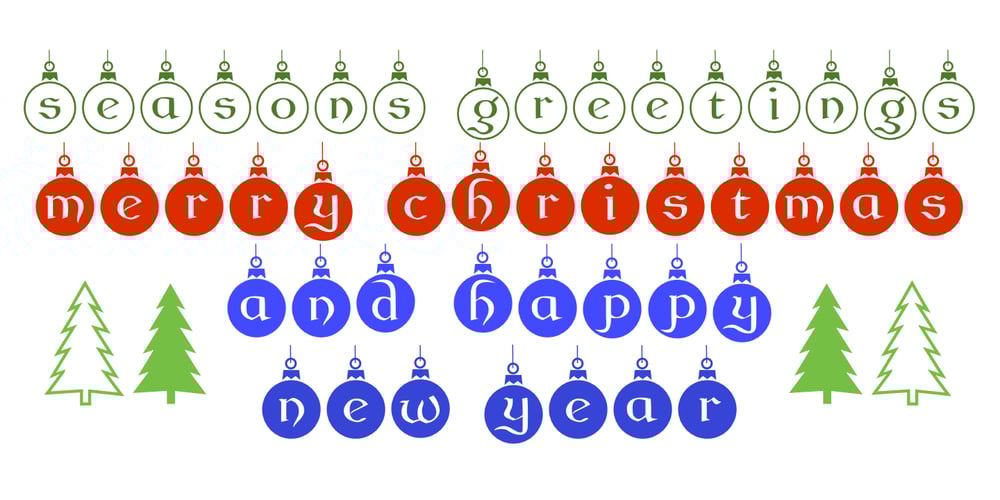
Seasons Greetings Font Family was designed by Robert Schenk and published by Ingrimayne Type. Seasons Greetings contains 1 styles and family package options. Seasons Greetings is intended to bring Christmas cheer. It has a very limited character set, with all the letters being lower-case. One set of letters is white on black Christmas balls, while the other is black on white Christmas balls. The lower-case letters can be layered on top of the upper-case letters to give bi-colored lettering. The letters on the Christmas ornaments are from the typeface Cuthbert.